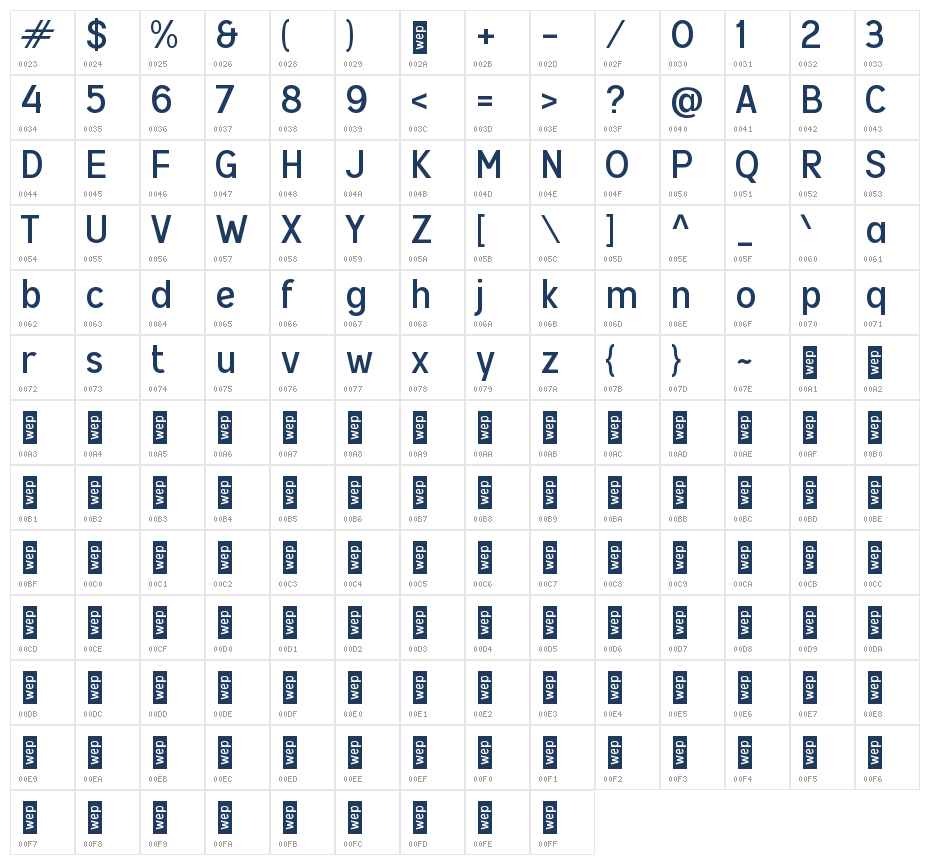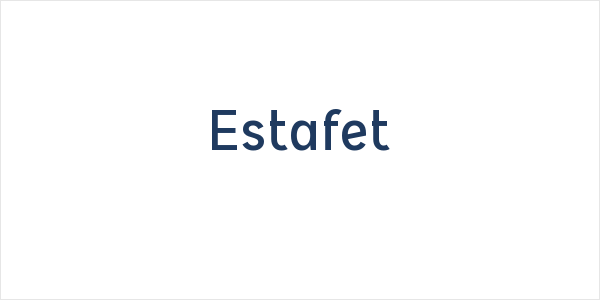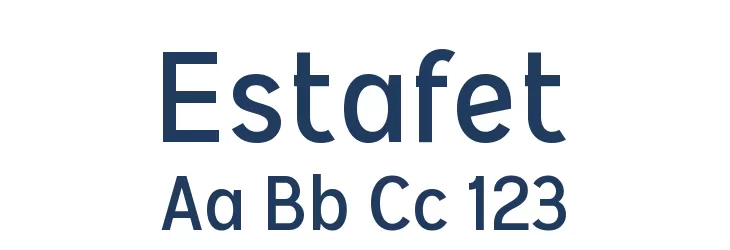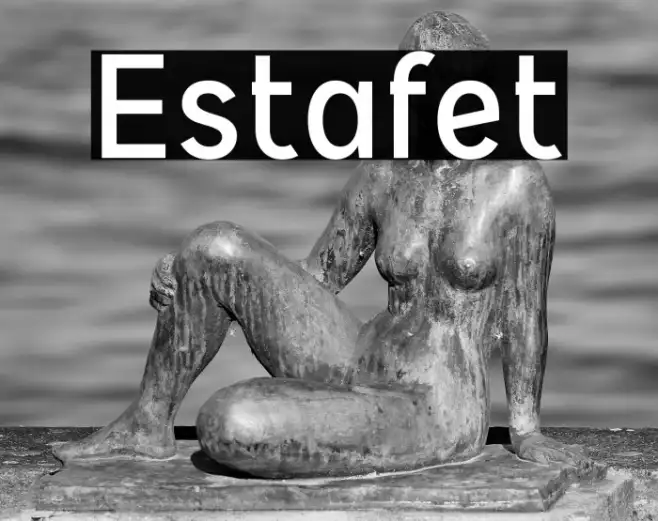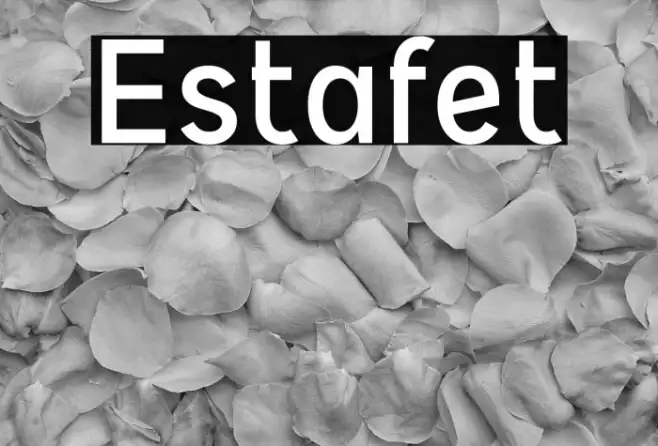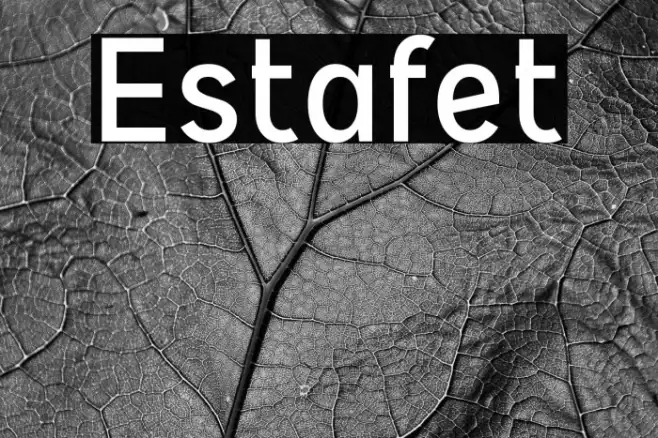
Estafet Font
Estafet Description
A clean, modern sans-serif font with uniform stroke width and rounded edges, suitable for digital and print use.
| Overall Style | Modern, Minimalist |
| Use Case | Headlines, Body text, Logos, User interfaces |